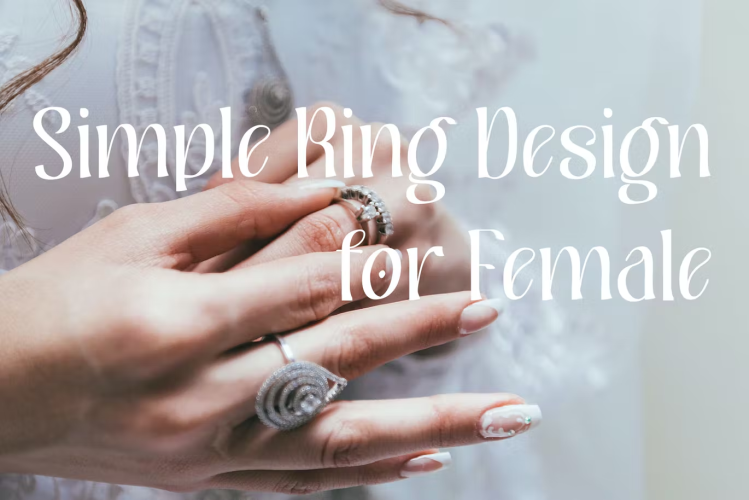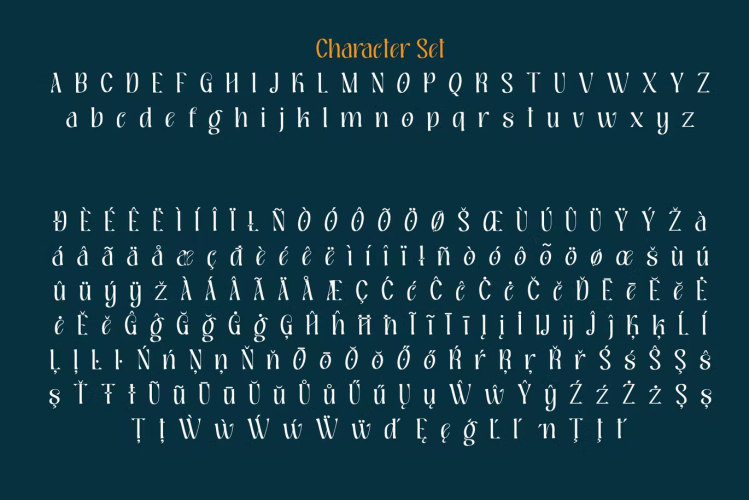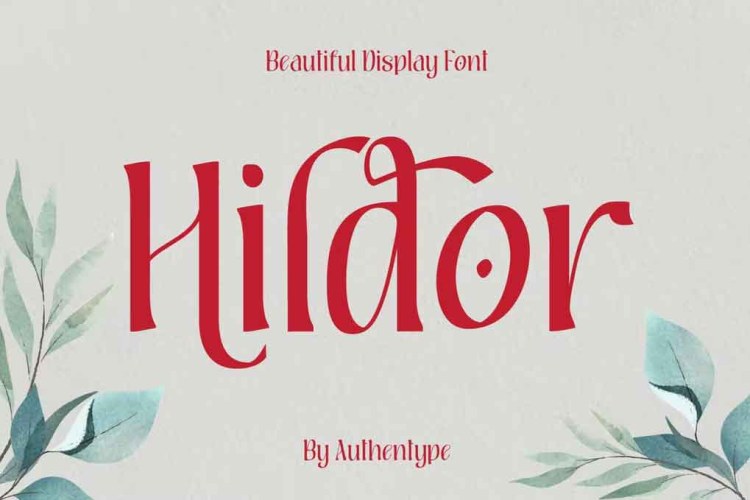
Hildor Beautiful Display Font
Hildor is a Beautiful Display Font
Hildor Beautiful Display Font a full set of uppercase and lowercase letters, multilingual symbols, numerals, punctuation, and ligatures. Also, it includes short lowercase beginning and ending swashes, lowercase ending swashes, which serve to connect two words or letters (This is so perfect for invitations, monograms), long lowercase beginning and ending heart swashes.
The font has a smooth texture, so it would be perfect for all types of printing techniques+you can do embroidery, laser-cut, gold foil, which makes the font look fabulous! Also, there are lots of stylistic alternatives, making each letter different.
Where Hildor Beautiful Display Font works best
Reports, white papers and book interiors hold the eye longer when the text face has real serifs; Hildor Beautiful Display Font keeps that rhythm without looking old-fashioned.
Food, spirits and cosmetics brands lean on serif wordmarks to suggest age and care. Hildor Beautiful Display Font gives that signal at wordmark size.
Set Hildor Beautiful Display Font for the body of an award or a diploma and keep the recipient name in a script; the pairing is what makes a document feel official.
What kind of work does Hildor Beautiful Display Font suit?
It sits in the Serif Fonts group and reads as branding, display, hildor, nbsp. That makes it a candidate wherever those qualities help: headings, packaging, social graphics and brand work. Set it at the size you plan to use before deciding.